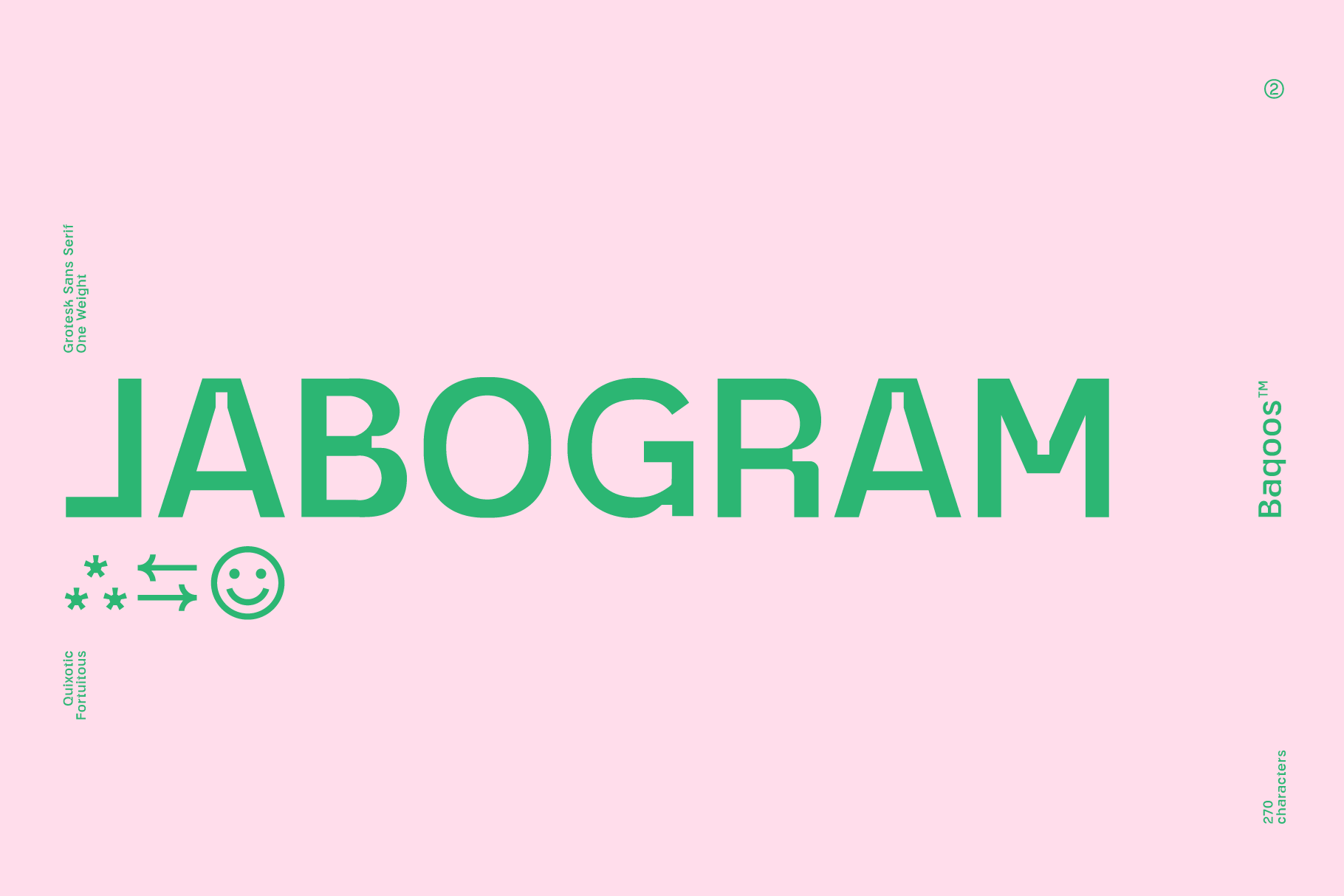
Jabogram Font
Jabogram is a quixotic fortuitous san serif typeface apt for headline, editorial, branding, packaging, printed materials and typographic applications. 250+ glyphs including punctuation and numerical.